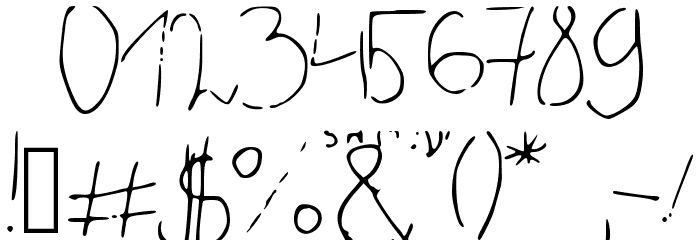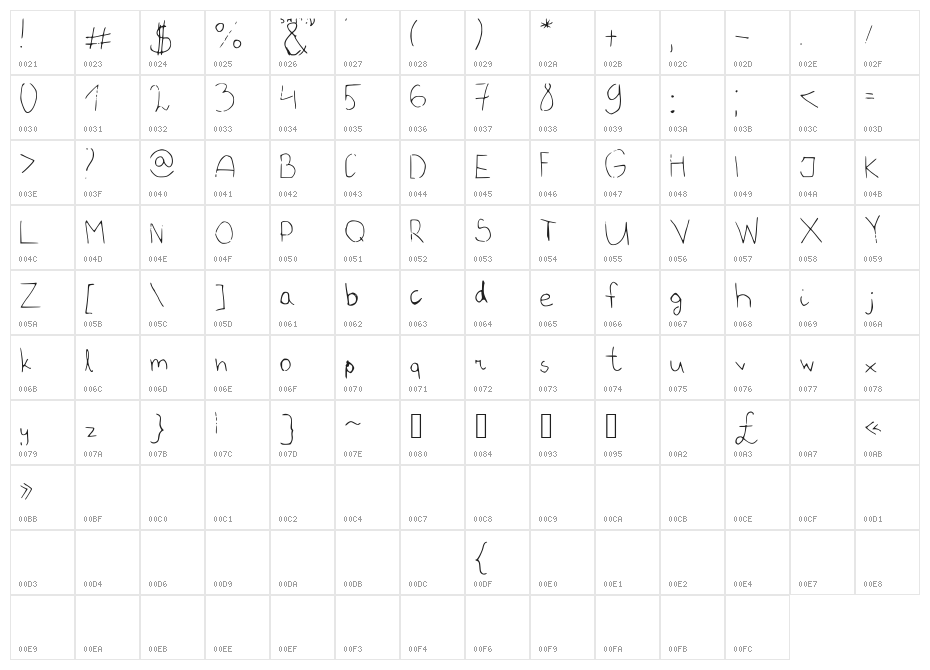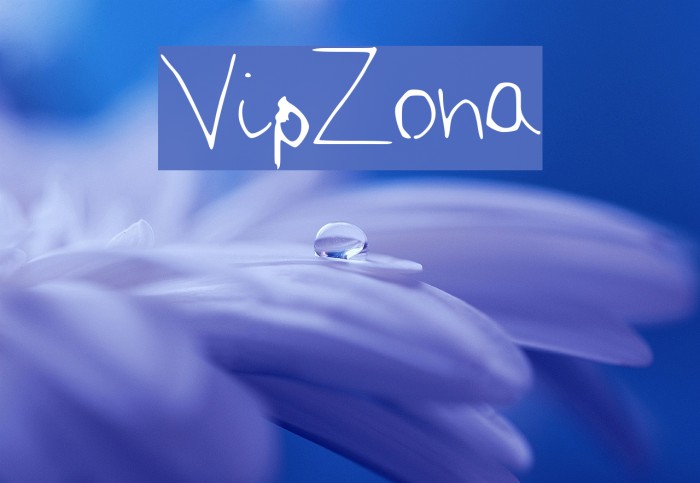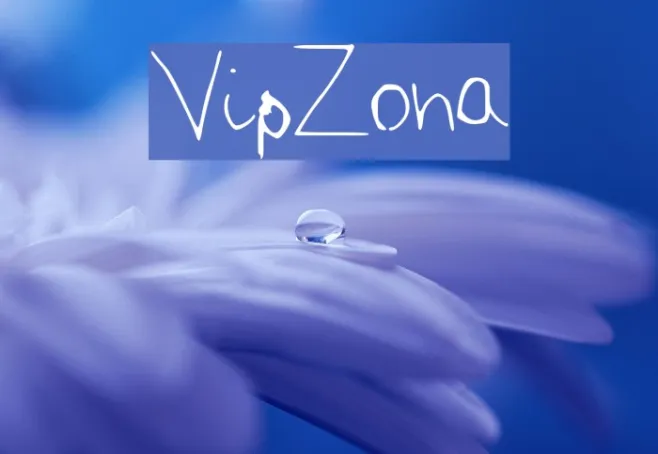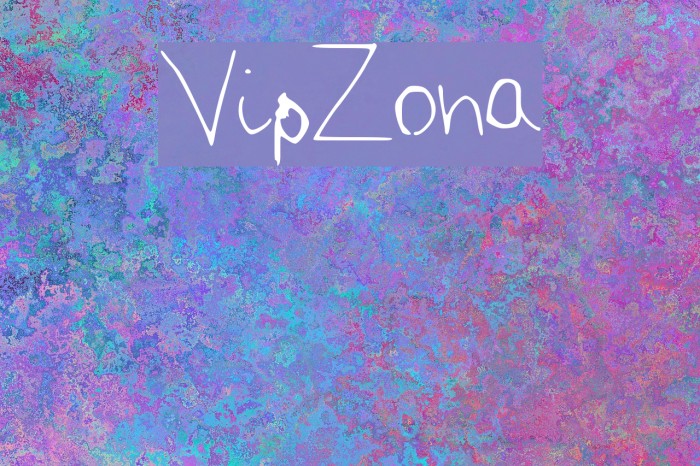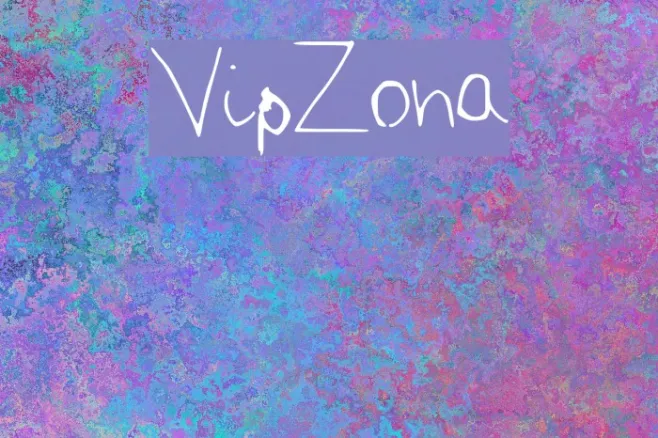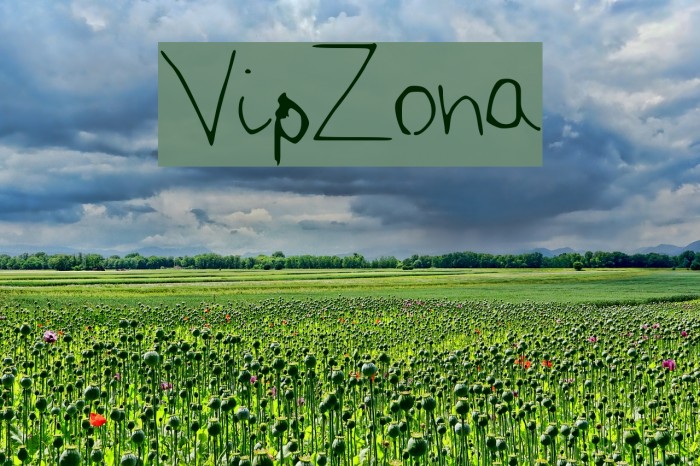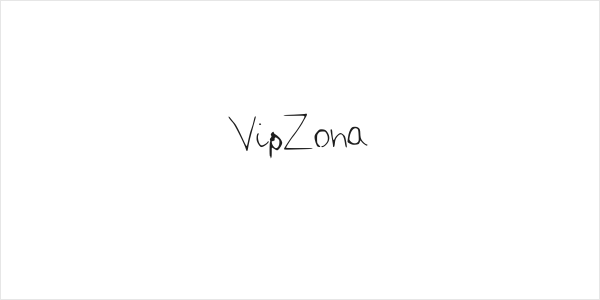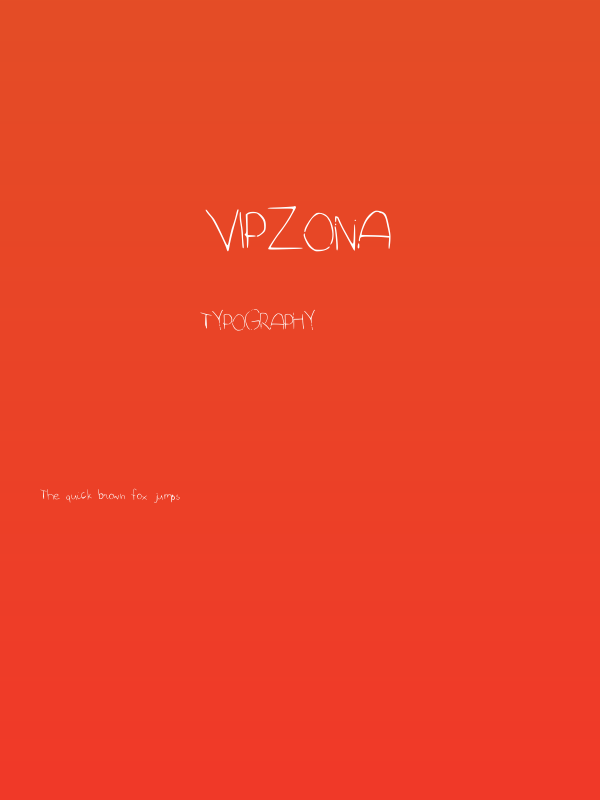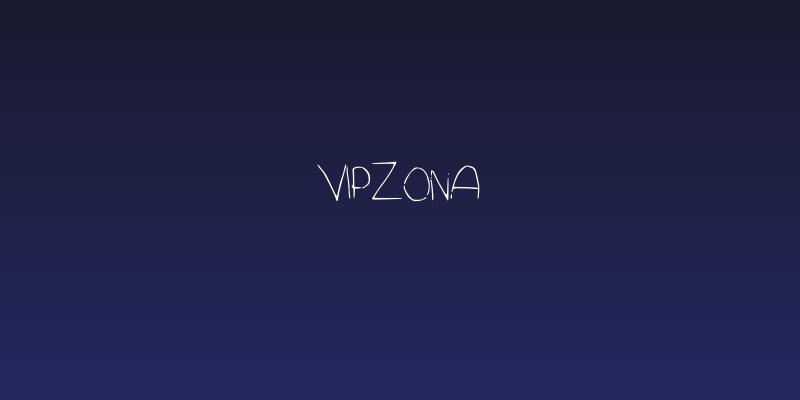
VipZona Font
VipZona Description
This font features a playful and whimsical style, characterized by its uneven and hand-drawn appearance. The uppercase letters have a quirky, irregular form with varying stroke thickness, giving them a lively and dynamic feel. The lowercase letters maintain this playful aesthetic, with some characters exhibiting unique loops and curves. Numbers and special characters follow the same design principles, adding to the font's overall charm. The font's informal and casual nature makes it suitable for creative and artistic projects, where a touch of personality is desired.